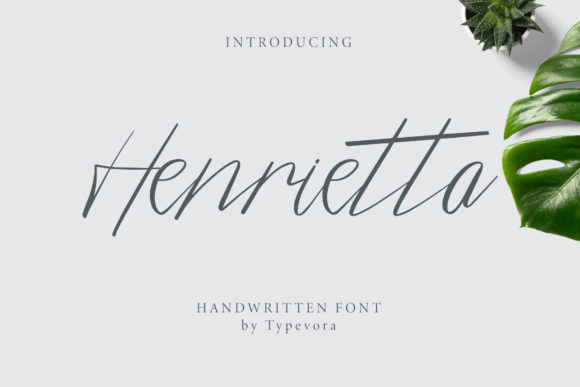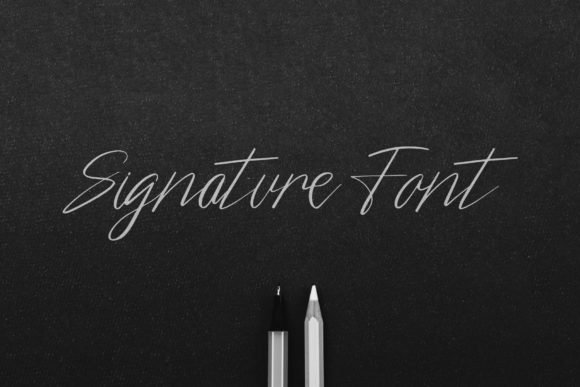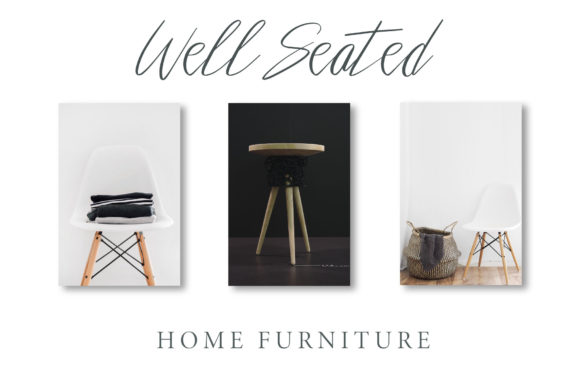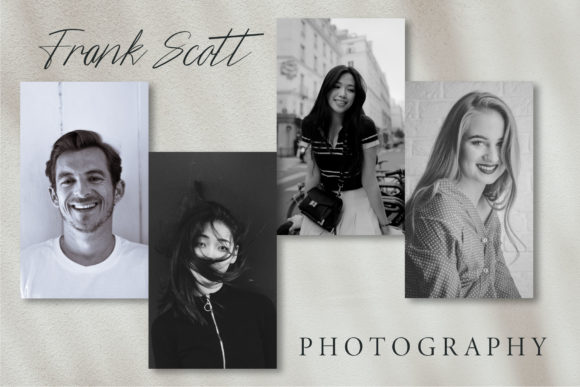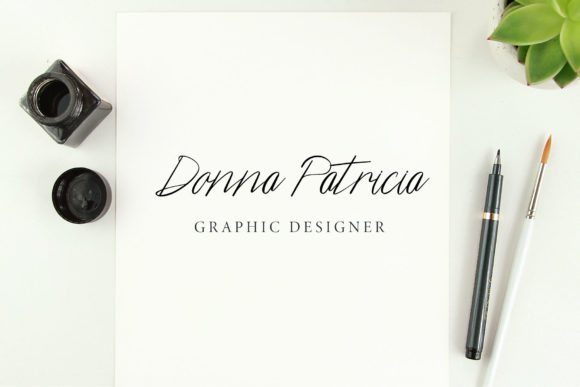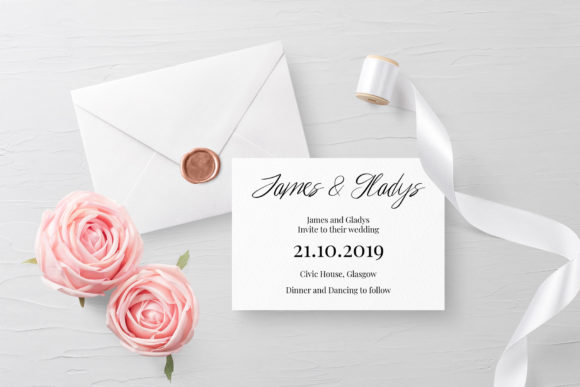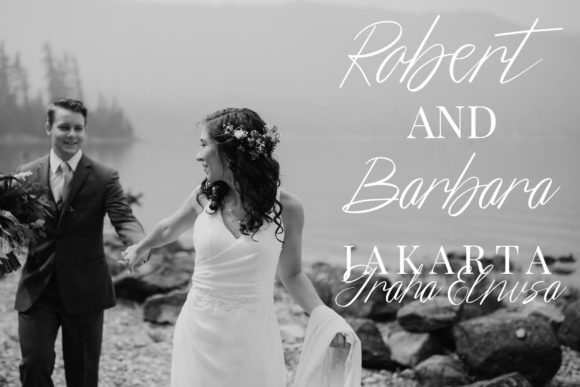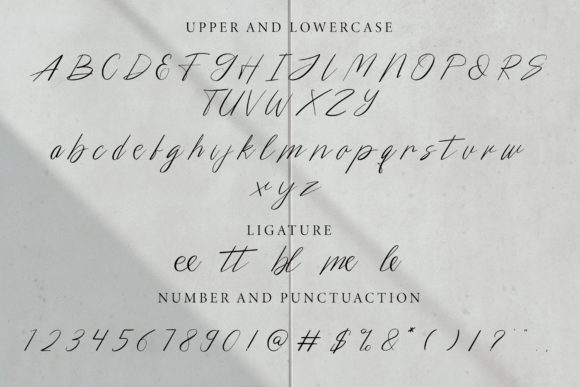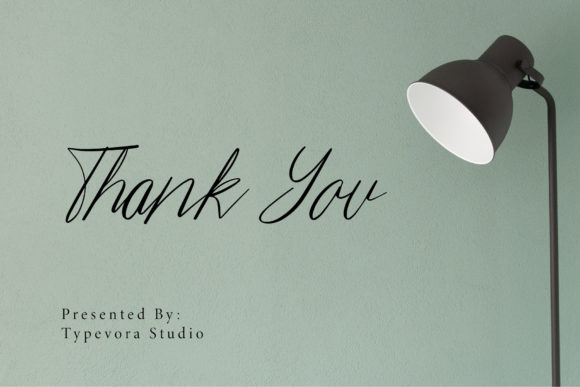
HomeScript FontsHenrietta Font Script Fonts Henrietta Font FacebookXPinterestWhatsApp Henrietta Font Poster 2 Henrietta Font Poster 3 Henrietta Font Poster 4 Henrietta Font Poster 5 Henrietta Font Poster 6 Henrietta Font Poster 7 Henrietta Font Poster 8 Henrietta Font Poster 9 About Henrietta Font Henrietta is a sweet and cool handwritten font with authentic letters. DOWNLOAD NOW People also explored Ericken Font Monogram Digifinger Font Handrail Signature Font Monolight Font Rushing Nightshade Font Pixelart Halloween Font Bally Girl Hello Holiday Valentine Font 301 0 TagsHenrietta Font Previous articleCocoharper FontNext articleMotherday Font LEAVE A REPLY Cancel reply Comment: Please enter your comment! Name:* Please enter your name here Email:* You have entered an incorrect email address! Please enter your email address here Website: Save my name, email, and website in this browser for the next time I comment. Personal Use Free Geracella Personal Use Free Read more about this font Starter Personal Use Free Read more about this font Rosebirth Personal Use Free Read more about this font Squealer Personal Use Free Read more about this font BLOG 5 Fonts That Will Dominate Design Trends in 2026 5 Fonts for 2026 That Will Dominate Design Trends Typography plays a critical role in visual communication, and as we look ahead to 2026, it’s... Best Fonts for T-Shirt Design – Top 2025 Picks Top 7 Google Fonts Alternatives for Faster and Privacy-Friendly Web Design (2025) Transform Your Website: Elevate Your Typography with 7 Best Web Font Generators